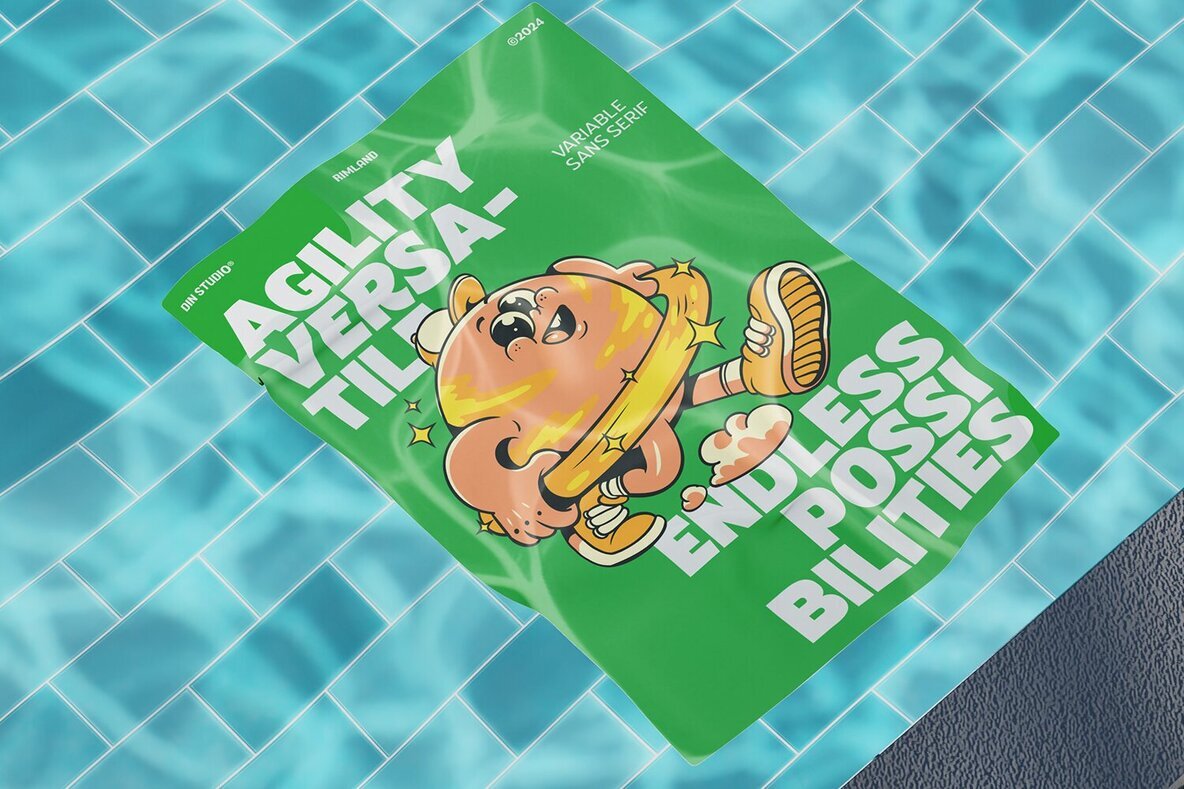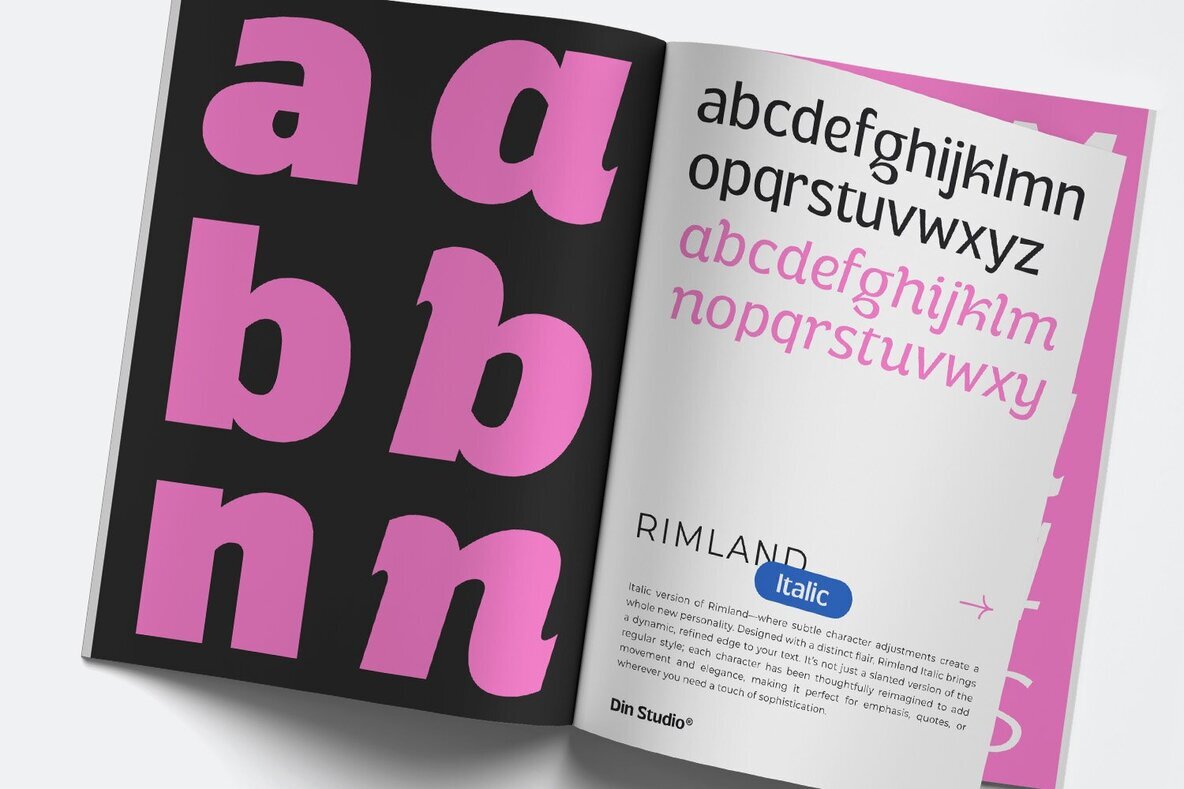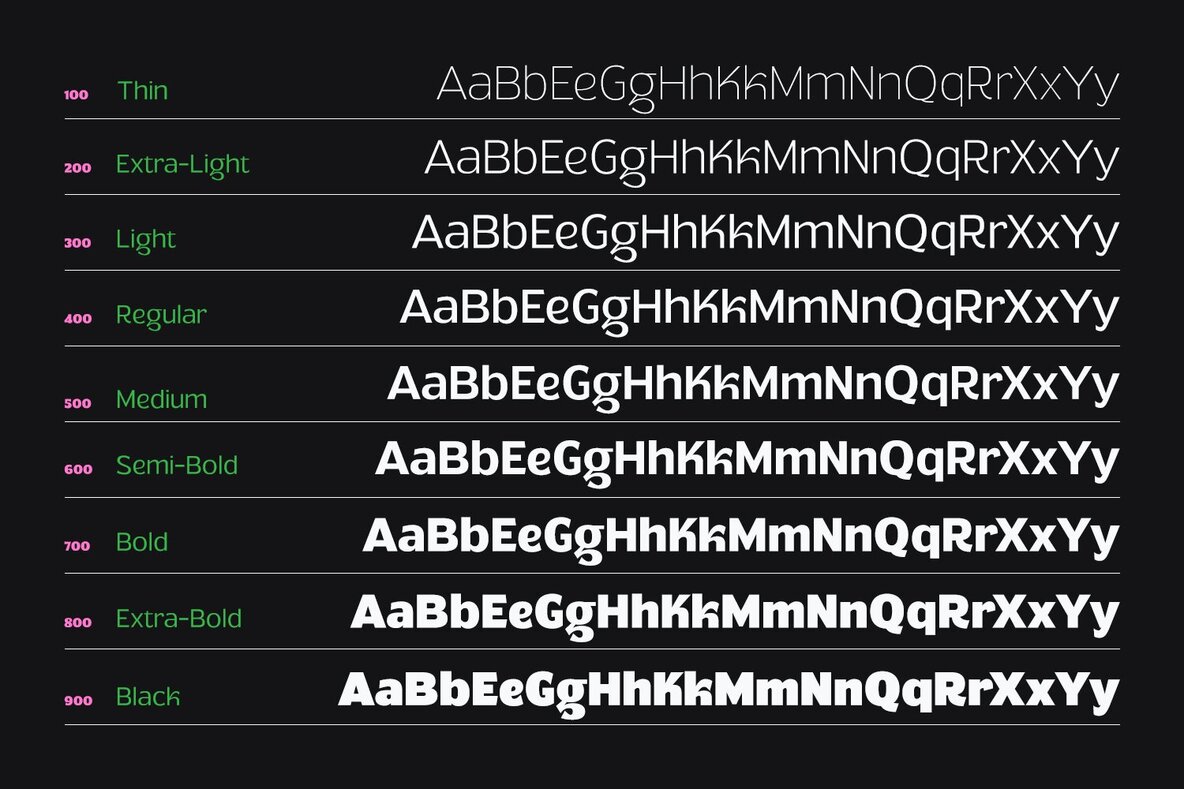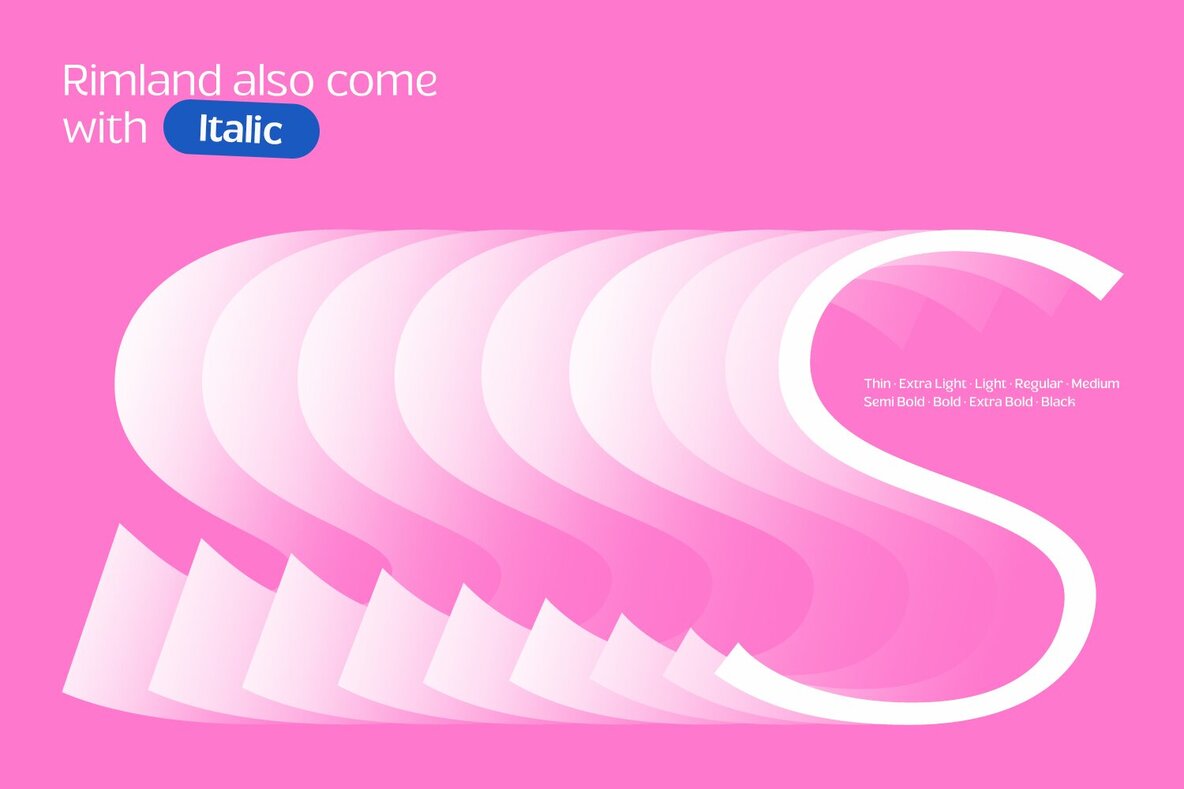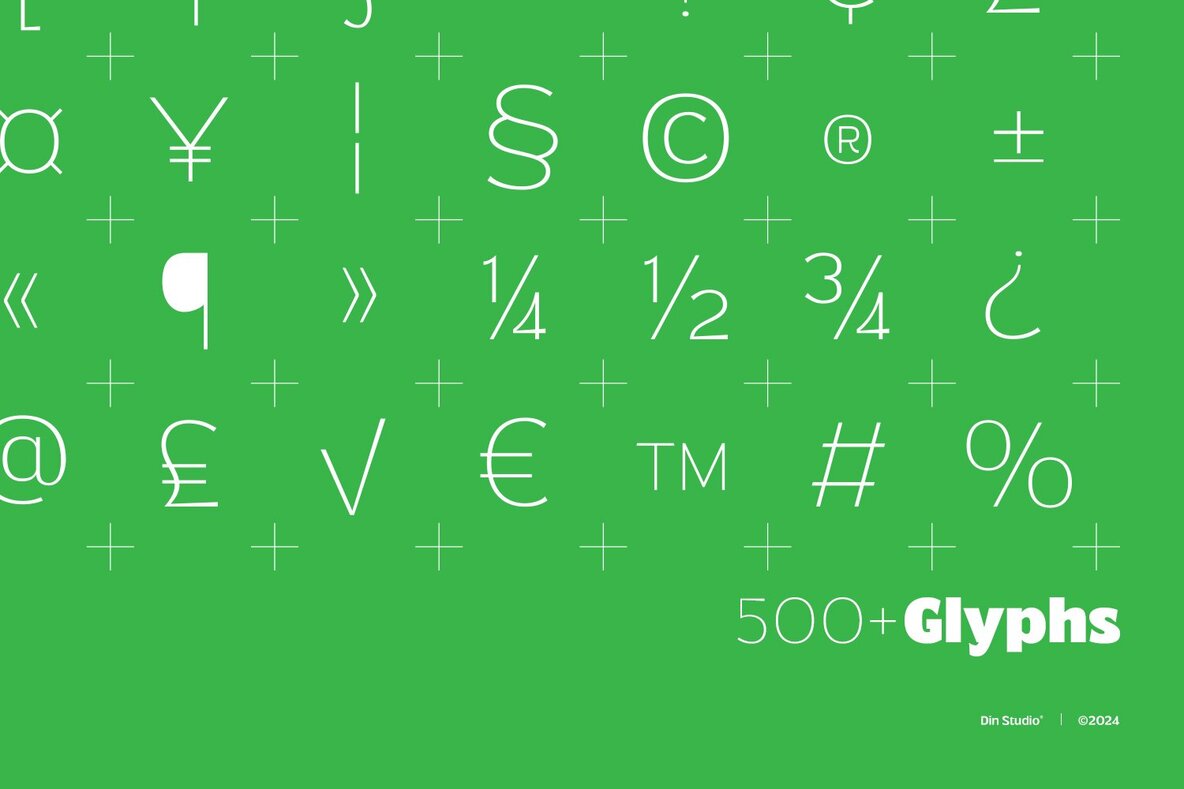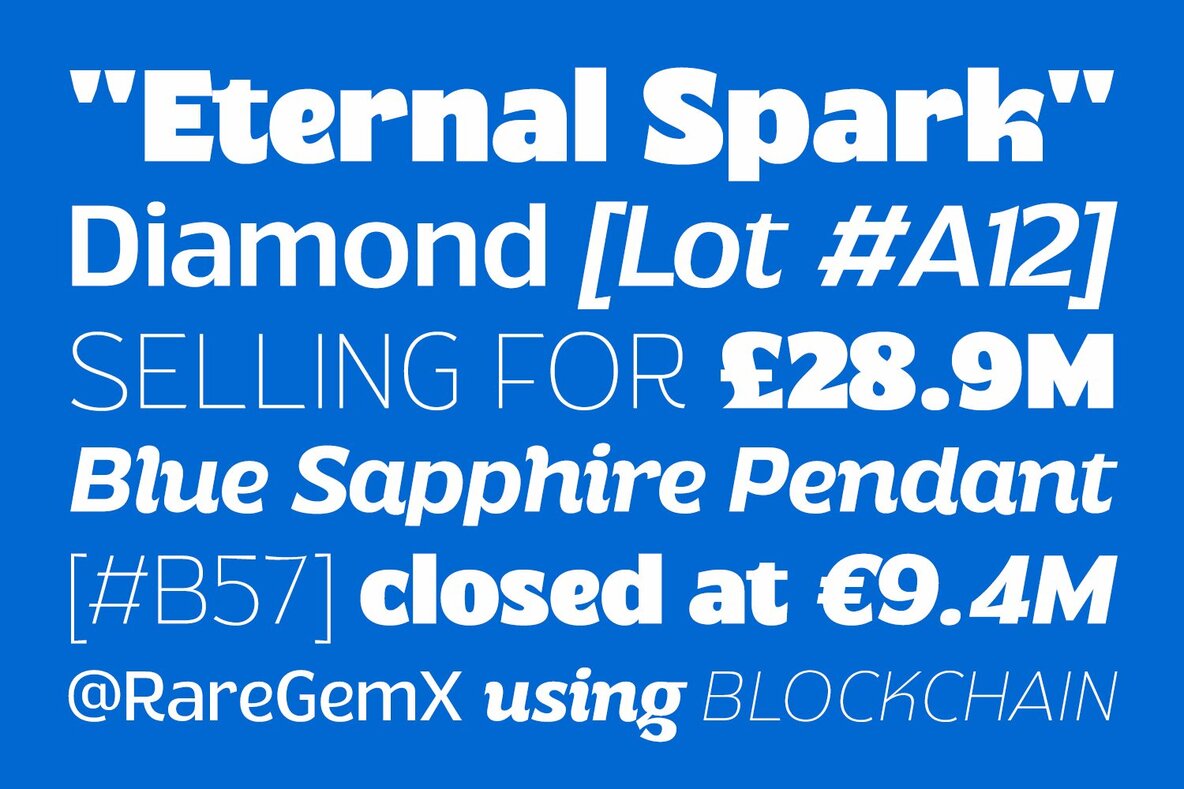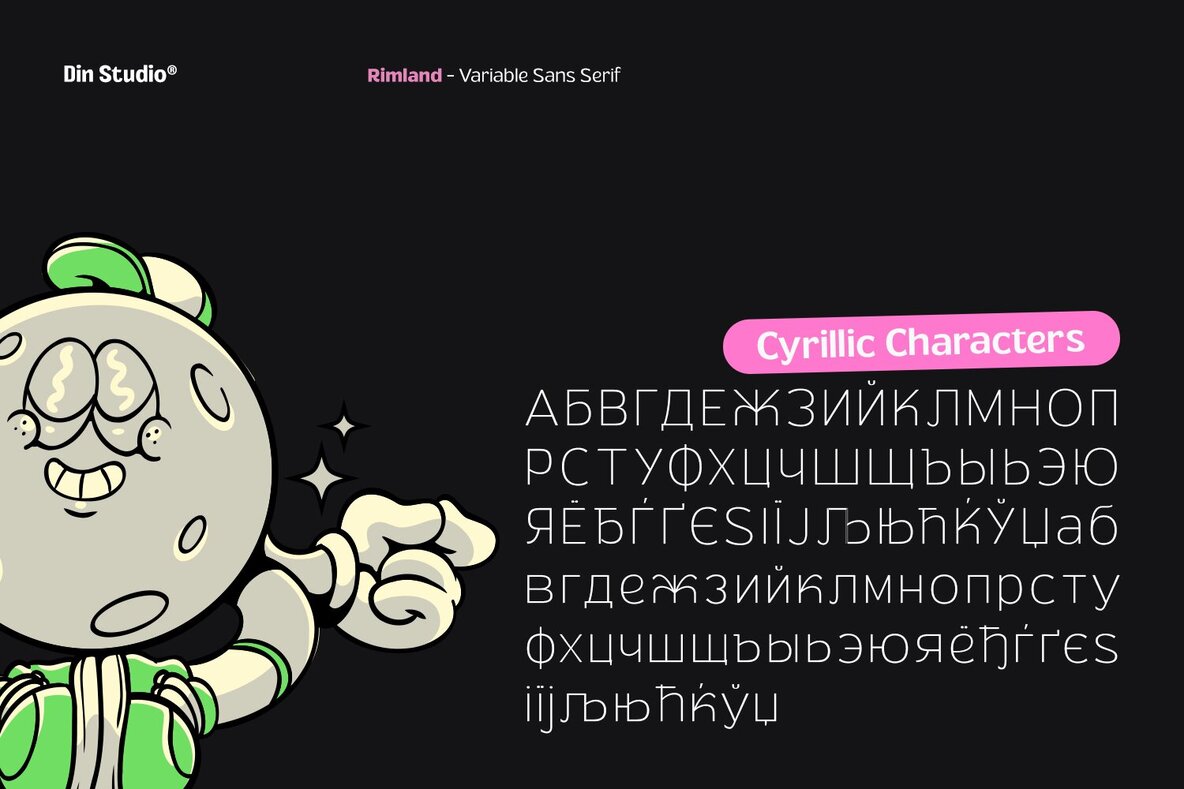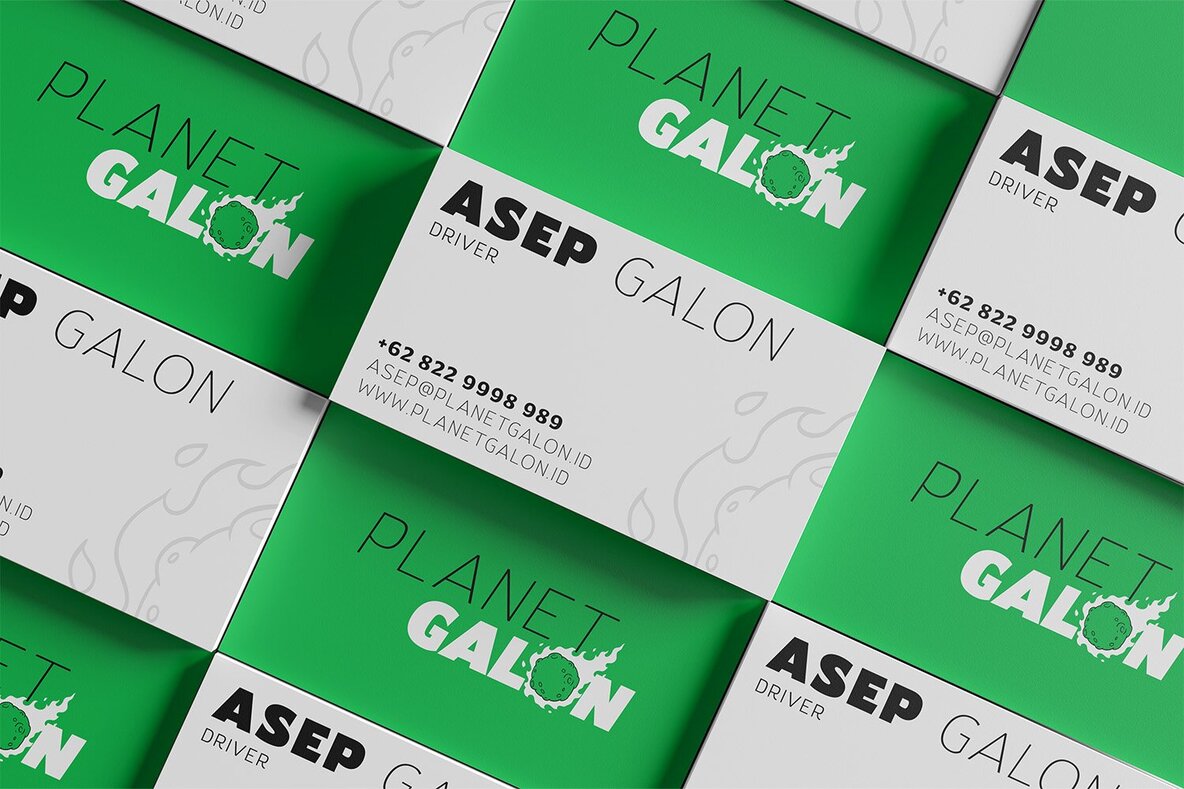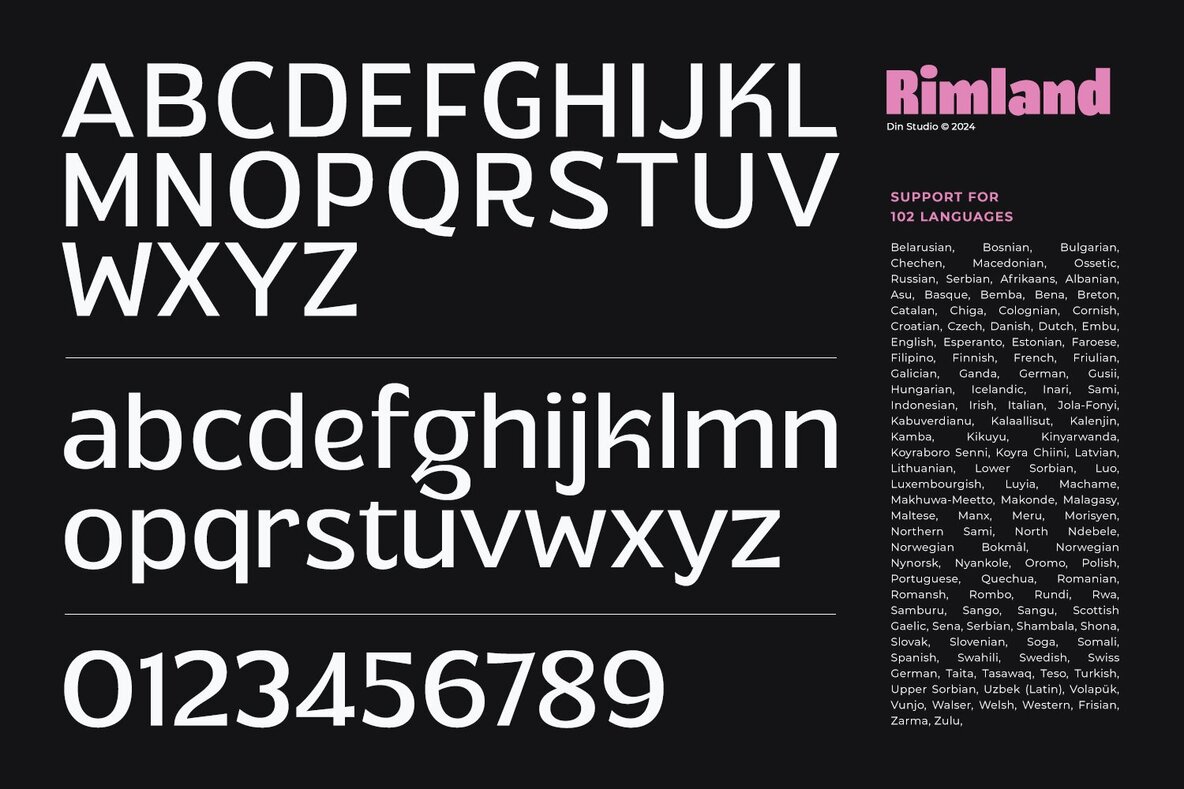
Rimland Font
Rimland is a versatile sans serif font family designed in a clean and modern style, ideal for graphic and digital designers seeking contemporary flair. Featuring nine different weights paired with matching italic versions, Rimland offers comprehensive flexibility for any project. This font family provides a professional touch to enhance your design work.
The available weights for Rimland include Thin, Extra Light, Light, Regular, Medium, Semi Bold, Bold, Extra Bold, and Black, each with italic counterparts. Notable features of this font are multilingual support, PUA encoding, and a full set of numerals and punctuation marks.
Perfect for headlines, logos, posters, invitations, branding materials, packaging, print media, and editorial layouts, Rimland adapts seamlessly to various design needs. Discover how Rimland can complement your projects by exploring the extensive font preview.